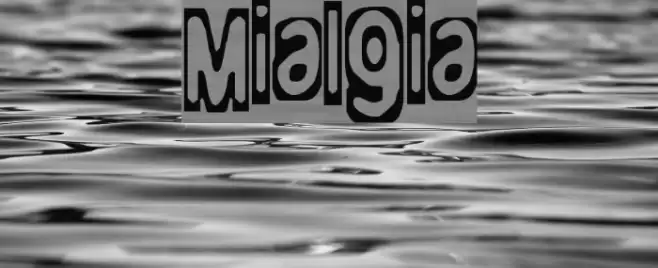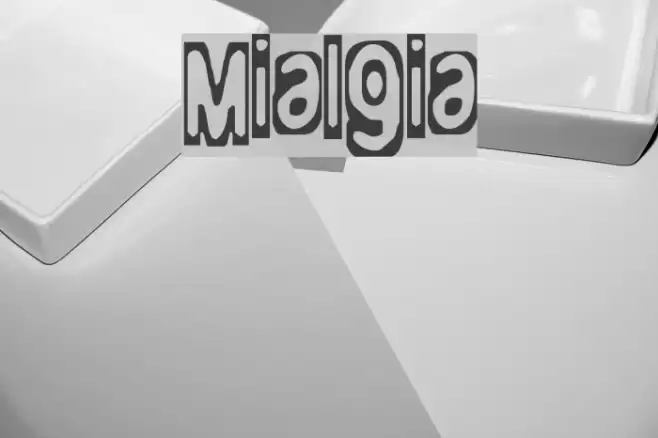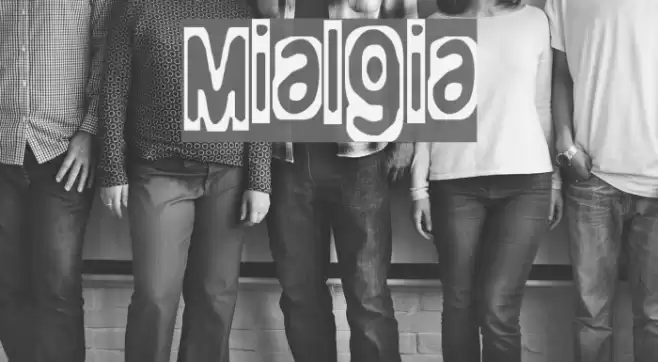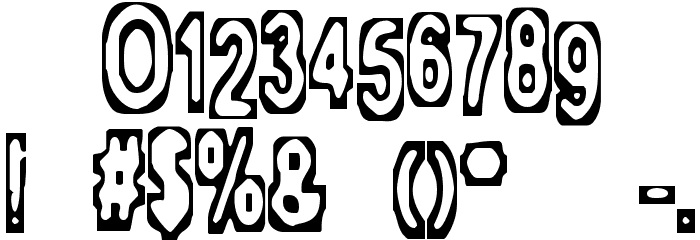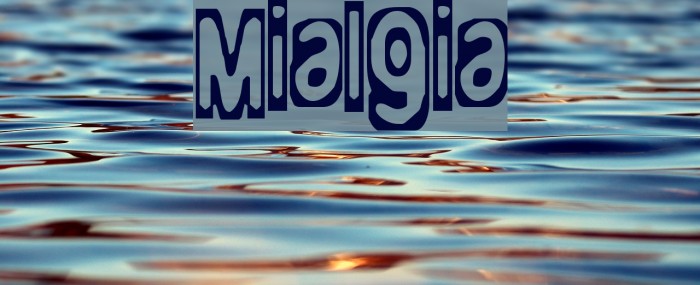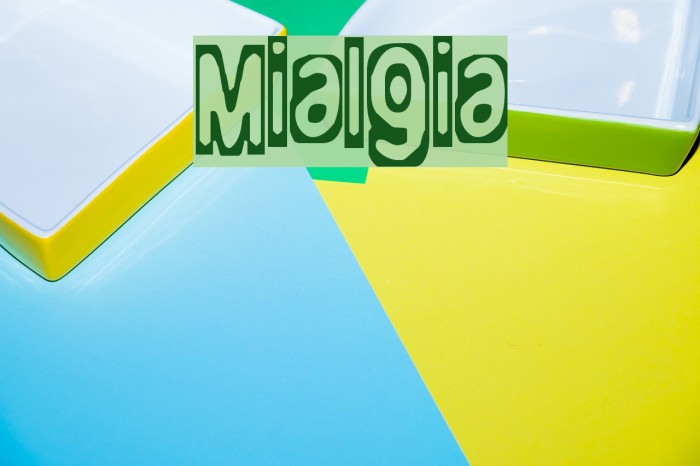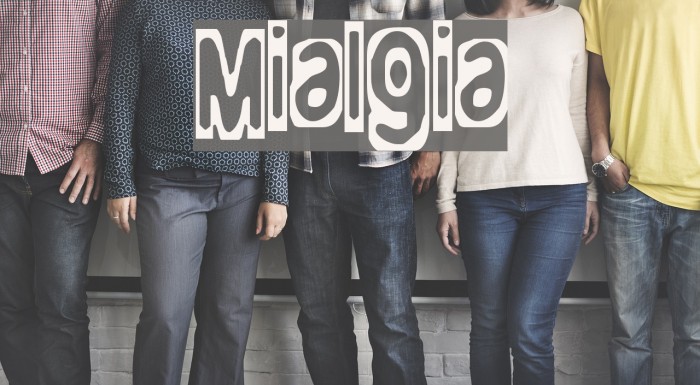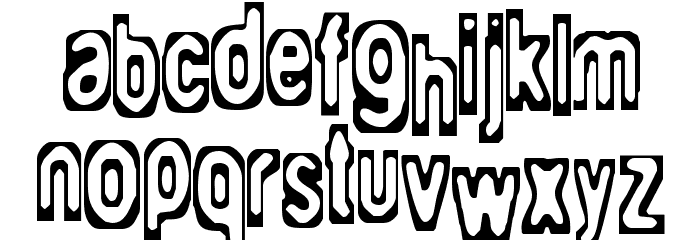
Mialgia Font
Mialgia Description
This font features a bold, outlined style with a playful and modern aesthetic. The characters are uppercase and lowercase letters, numbers, and a selection of special symbols. Each character has a thick outline that gives it a three-dimensional appearance, making it stand out against various backgrounds. The font's design is consistent across all characters, maintaining a uniform look that is both eye-catching and easy to read. Its unique style makes it suitable for creative projects where a bold statement is needed.
A bold, outlined font with a playful and modern style from Stencil fonts.